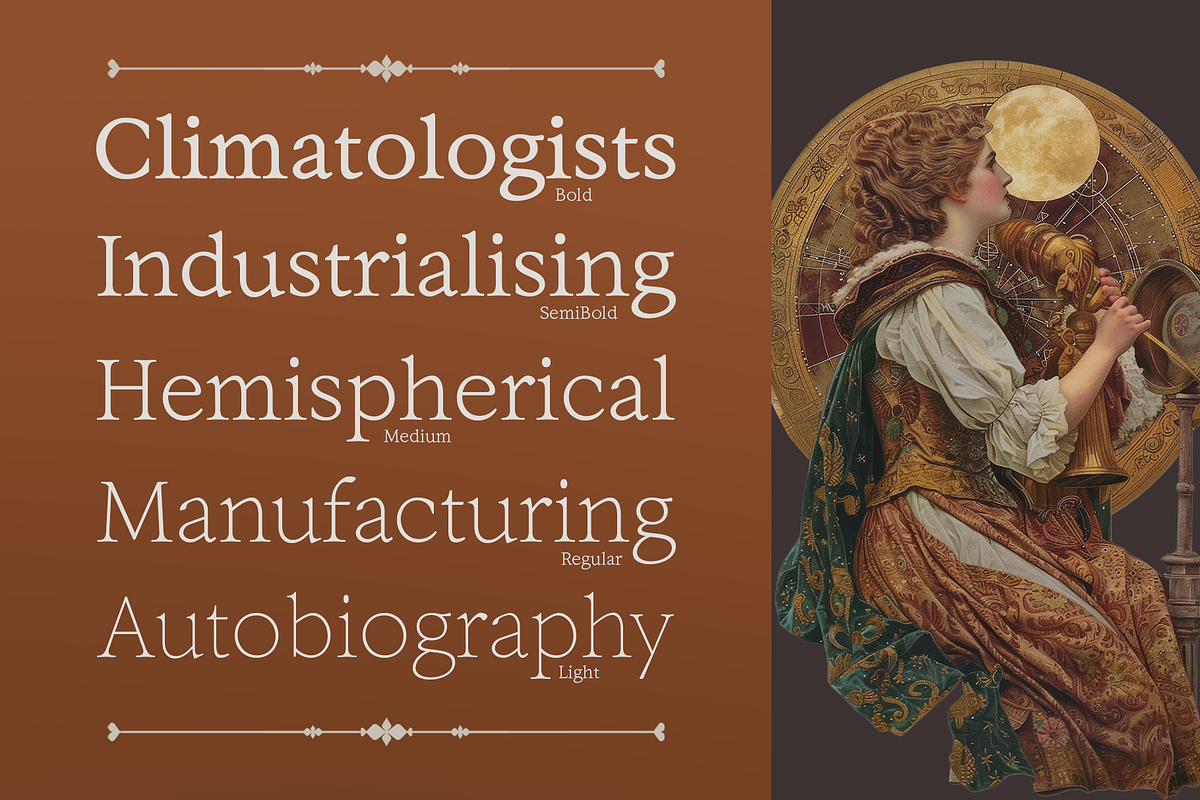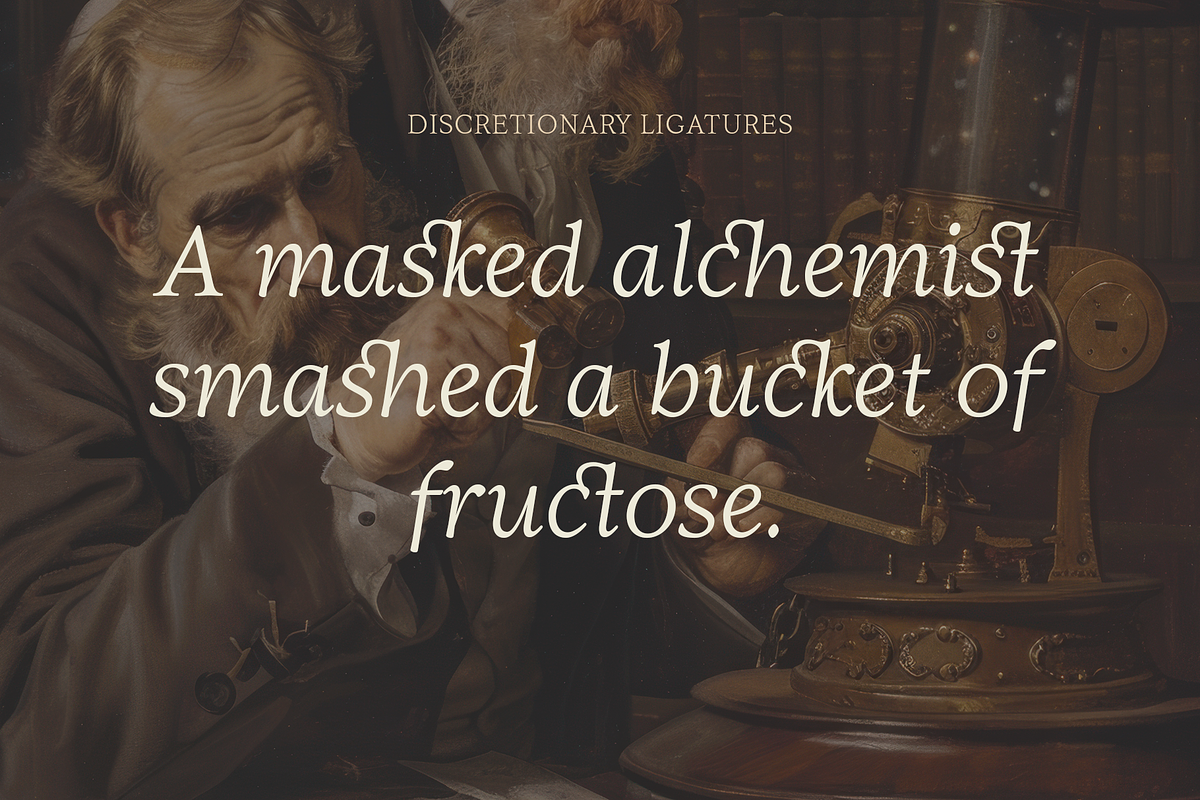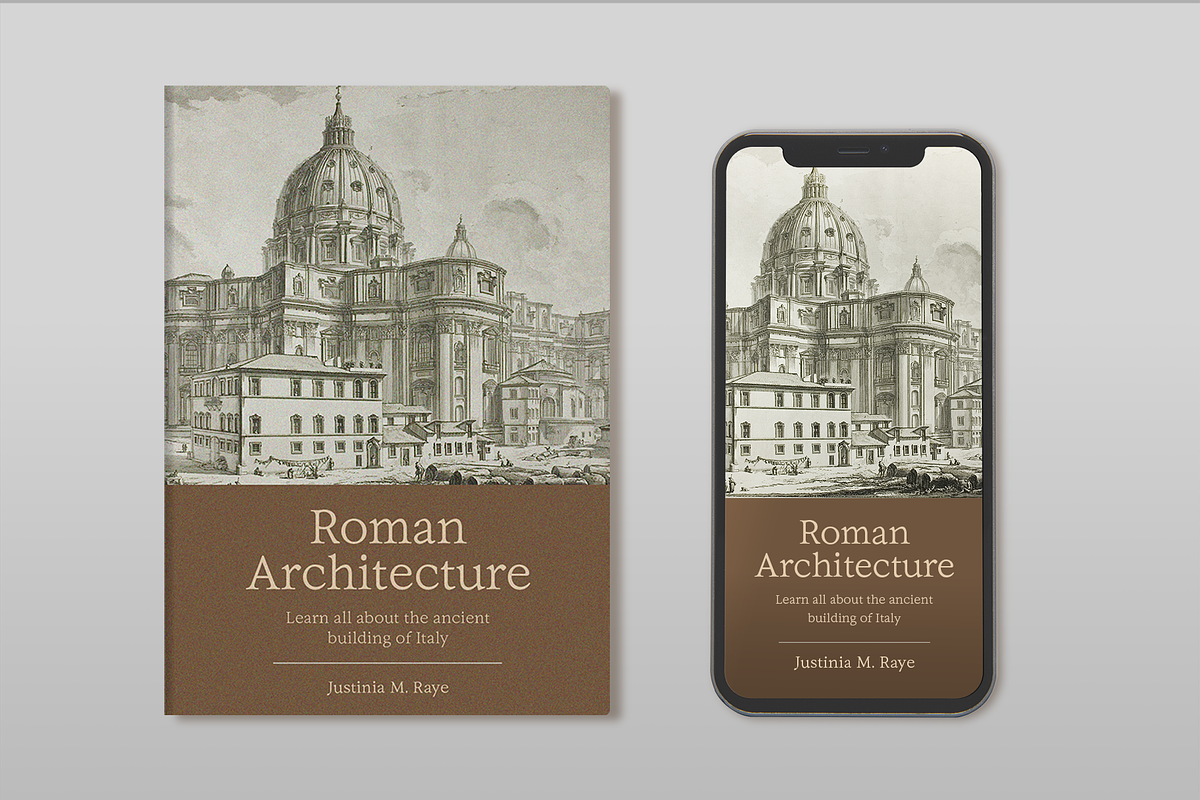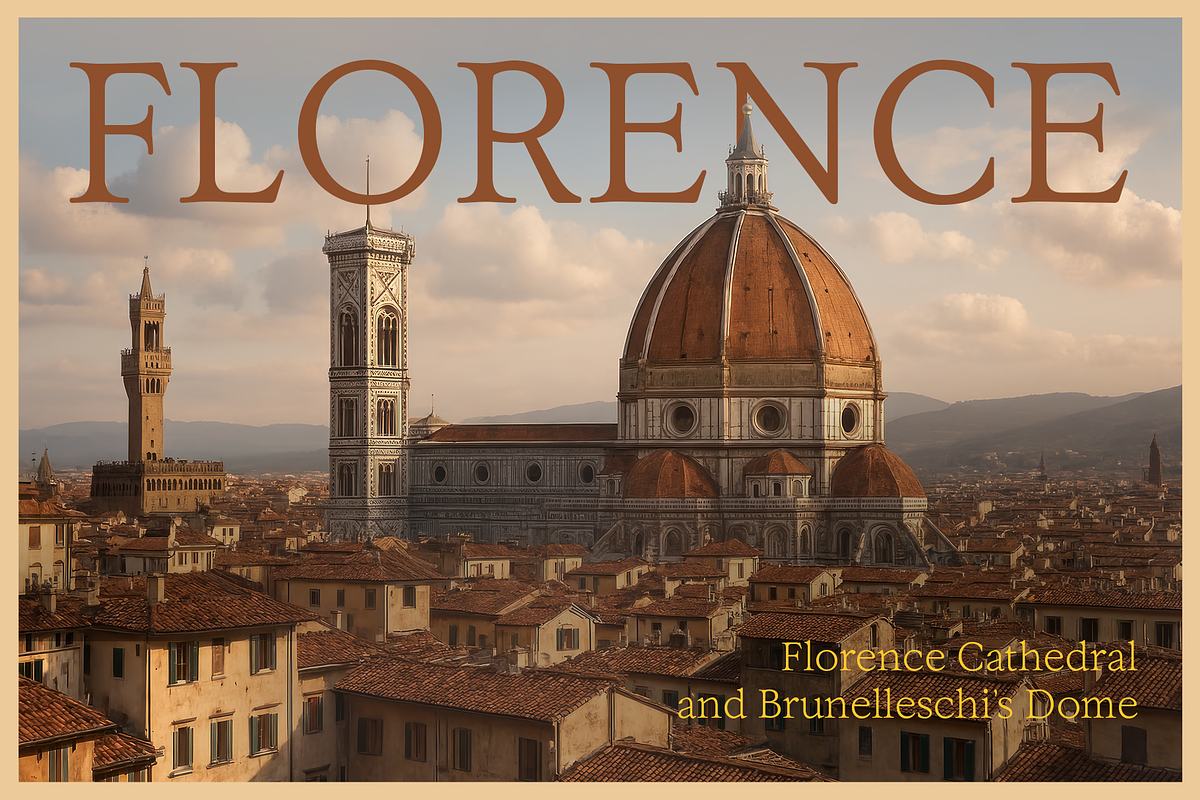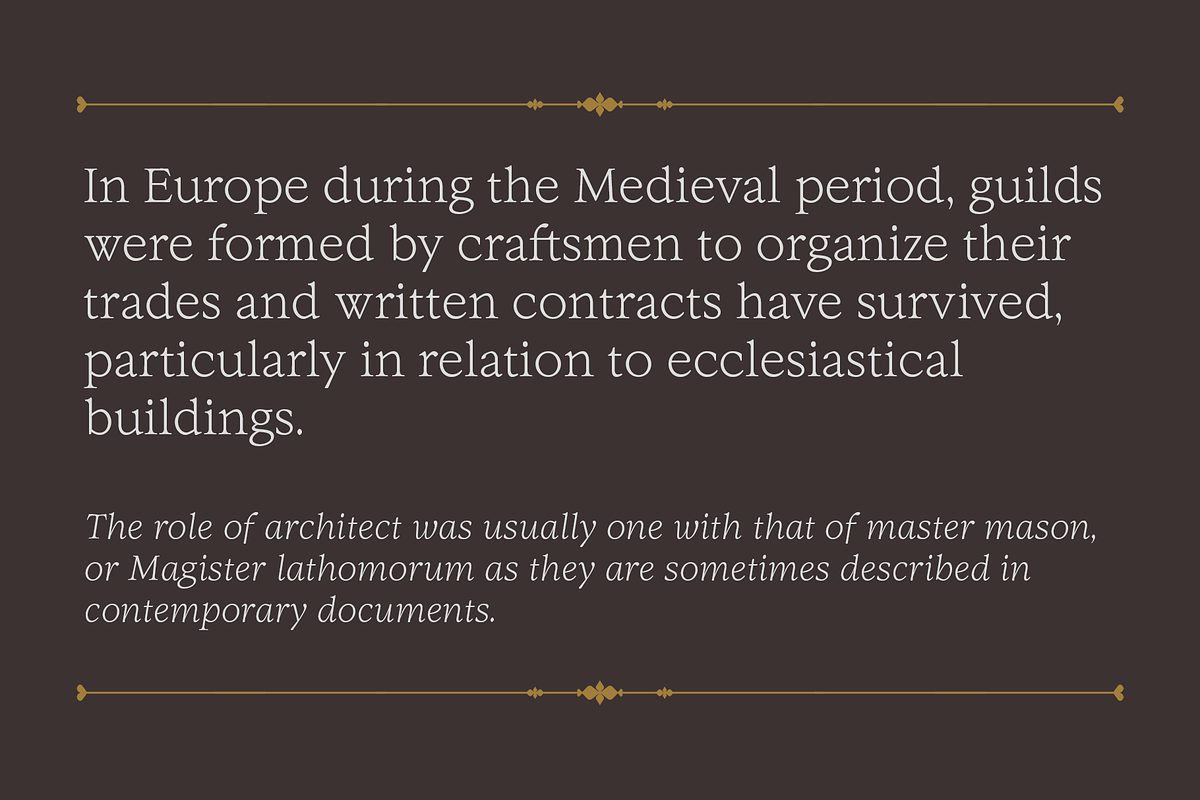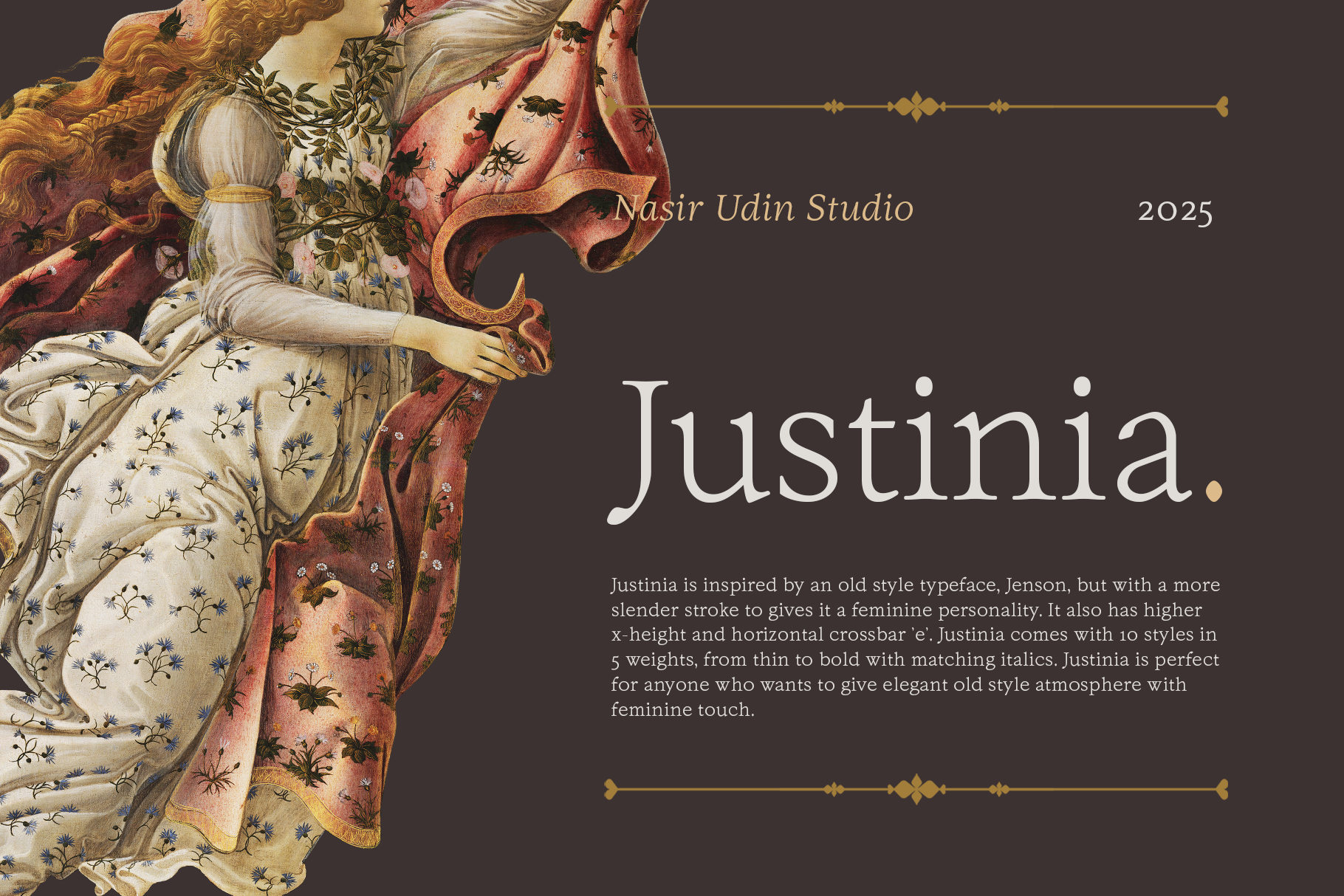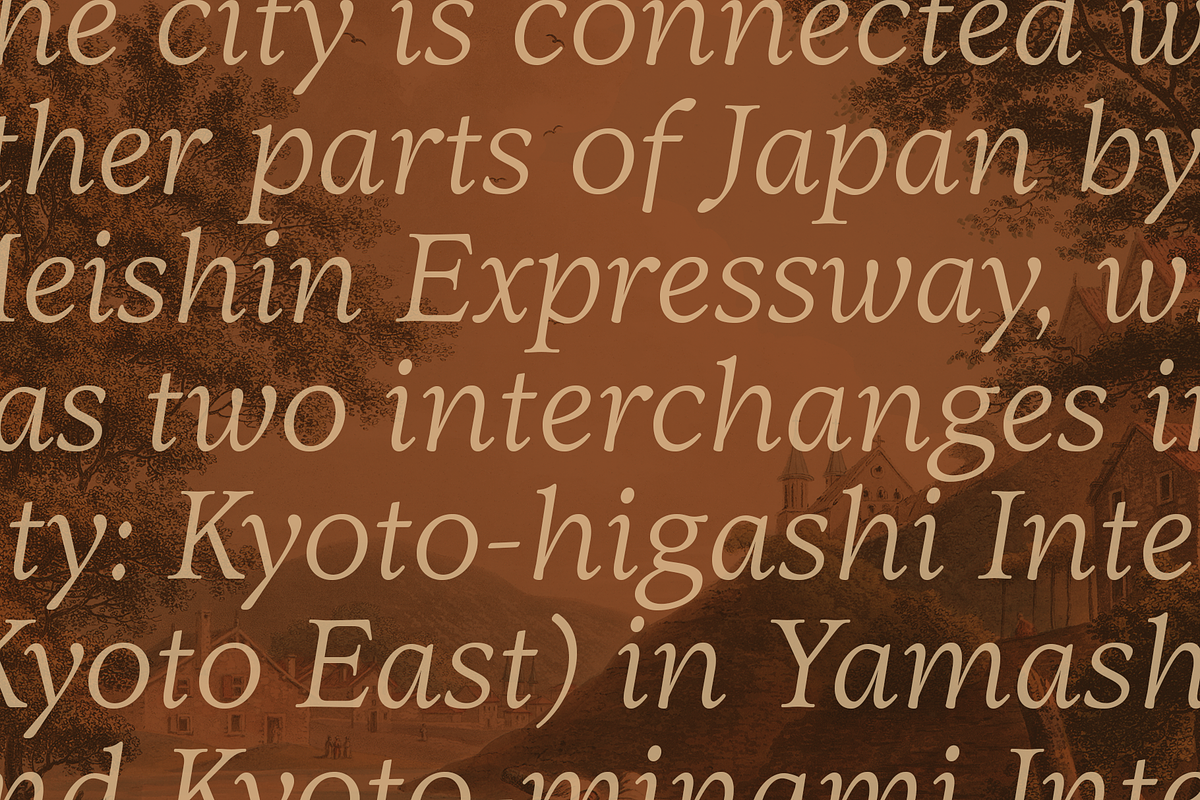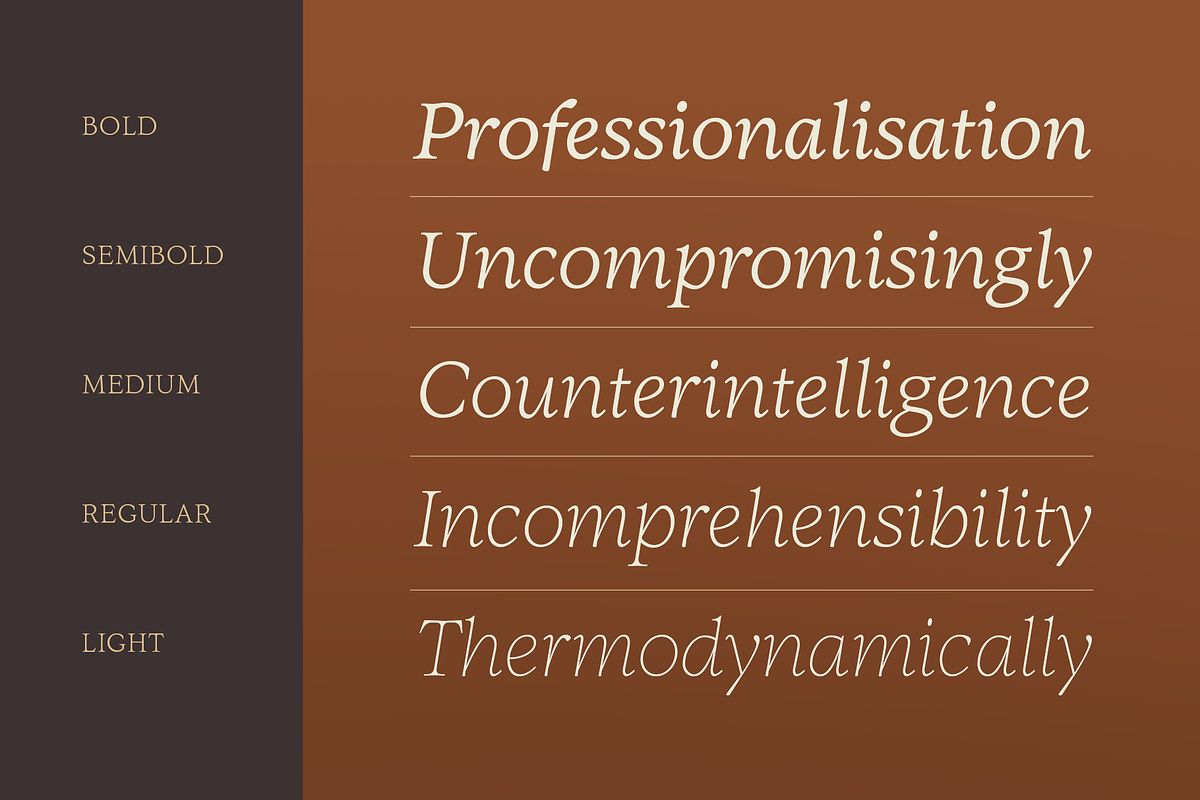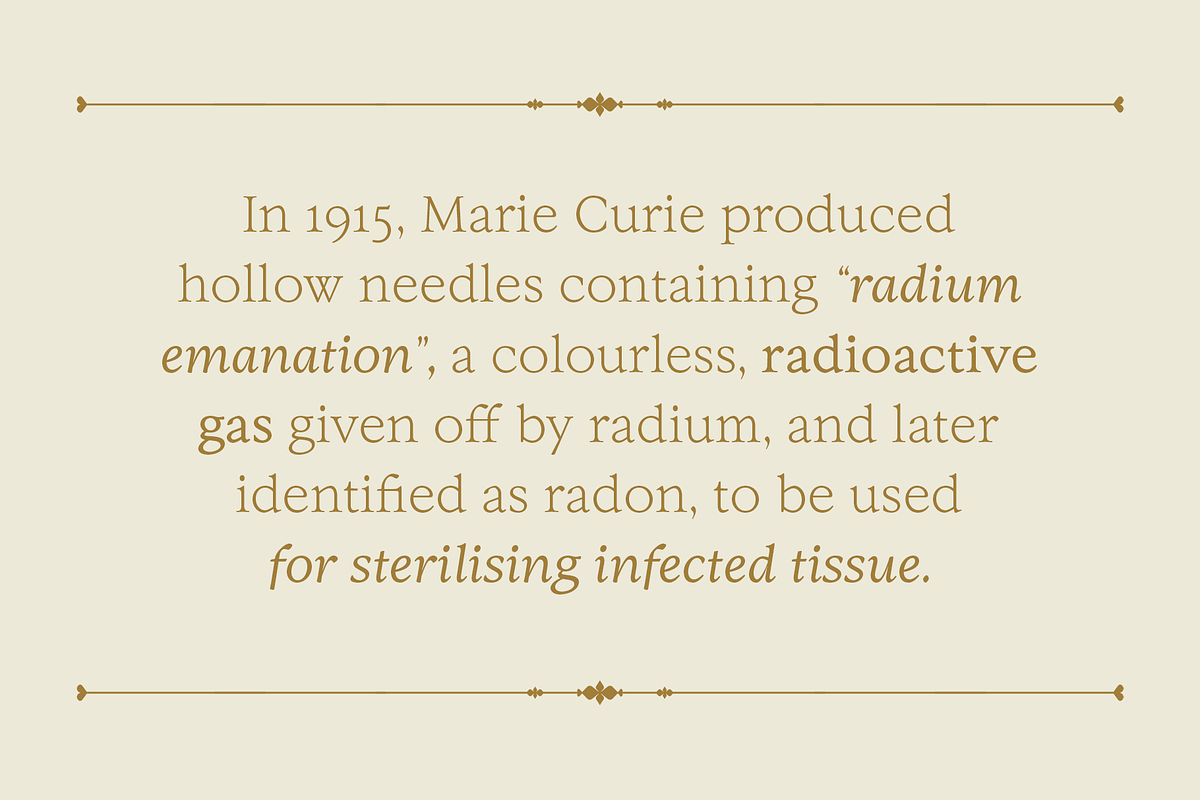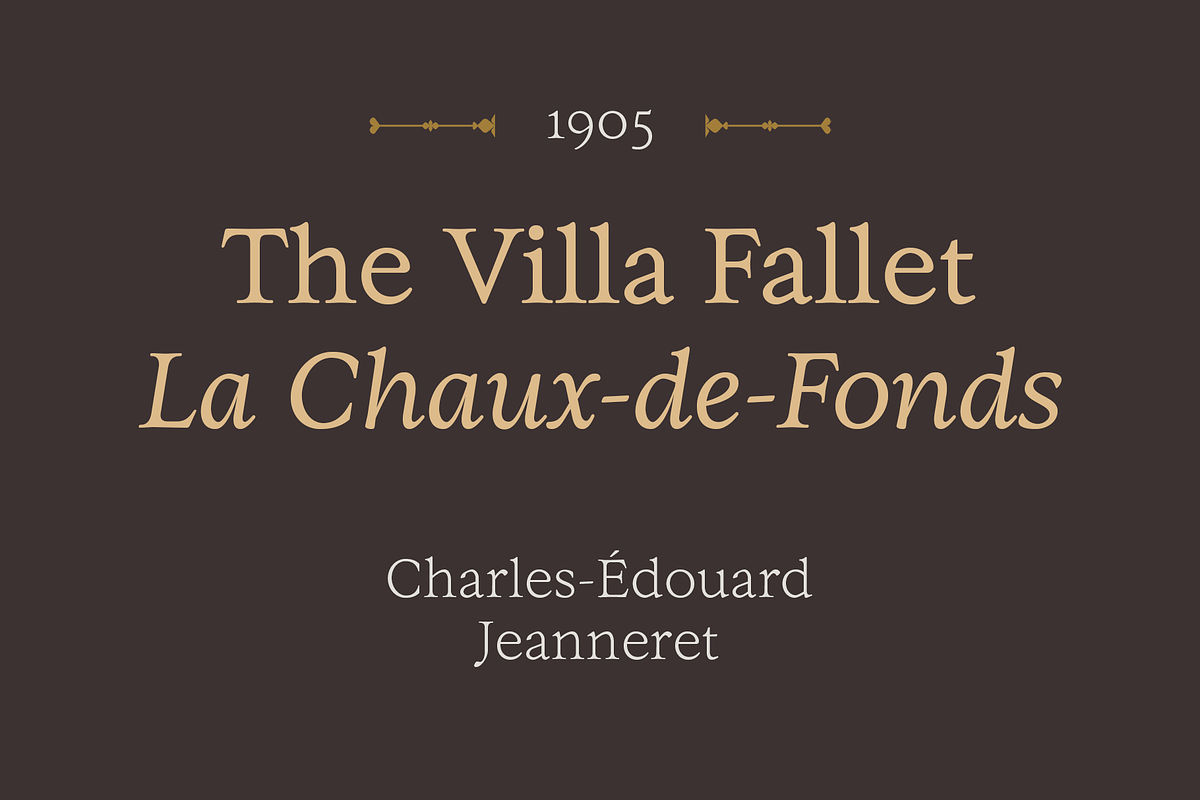
Justinia - 10 Old Style Fonts
Justinia is inspired by an old style typeface, Jenson, but with a more slender stroke to gives it a feminine personality. It also has higher x-height and horizontal crossbar 'e'. Justinia comes with 10 styles in 5 weights, from thin to bold with matching italics. Justinia is perfect for anyone who wants to give elegant old style atmosphere with feminine touch.